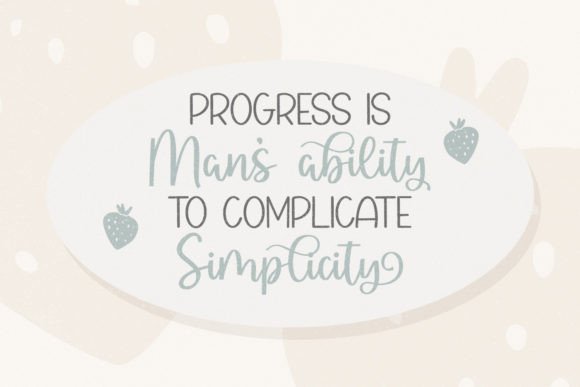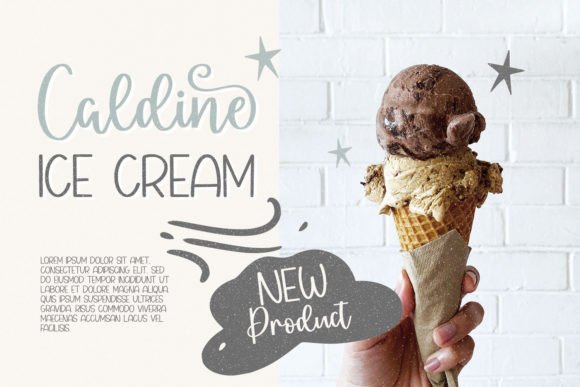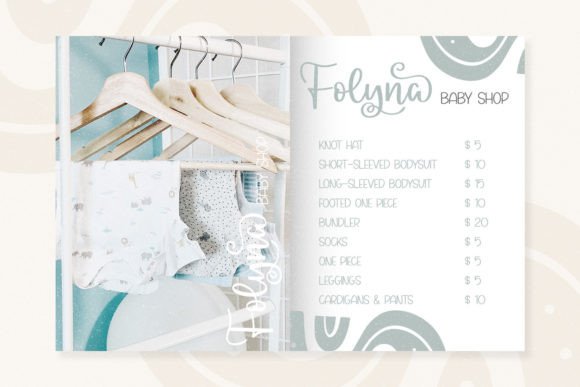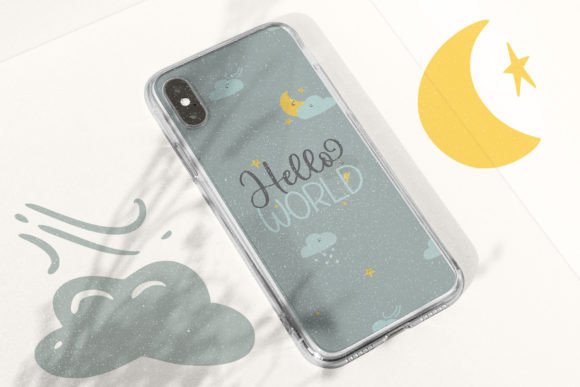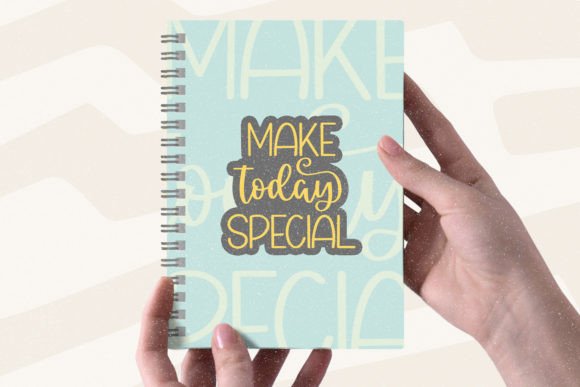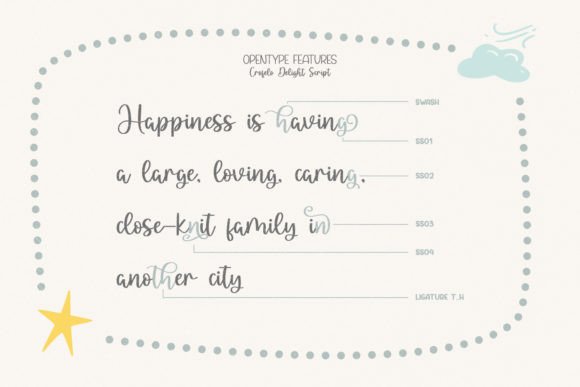
Introduction to Crofelo Delight Duo Font
Crofelo Delight – with the combination between a cute script font and a gorgeous display you can mix, match, and call your own.
This harmonious font duo will instantly enhance your designs .
Key Features of Crofelo Delight Duo Font
Why Choose Crofelo Delight Duo Font?
Crofelo Delight Duo Font offers exceptional quality and versatility, making it a valuable addition to your design toolkit. Whether you’re creating for personal projects or commercial use, Crofelo Delight Duo Font delivers professional results.